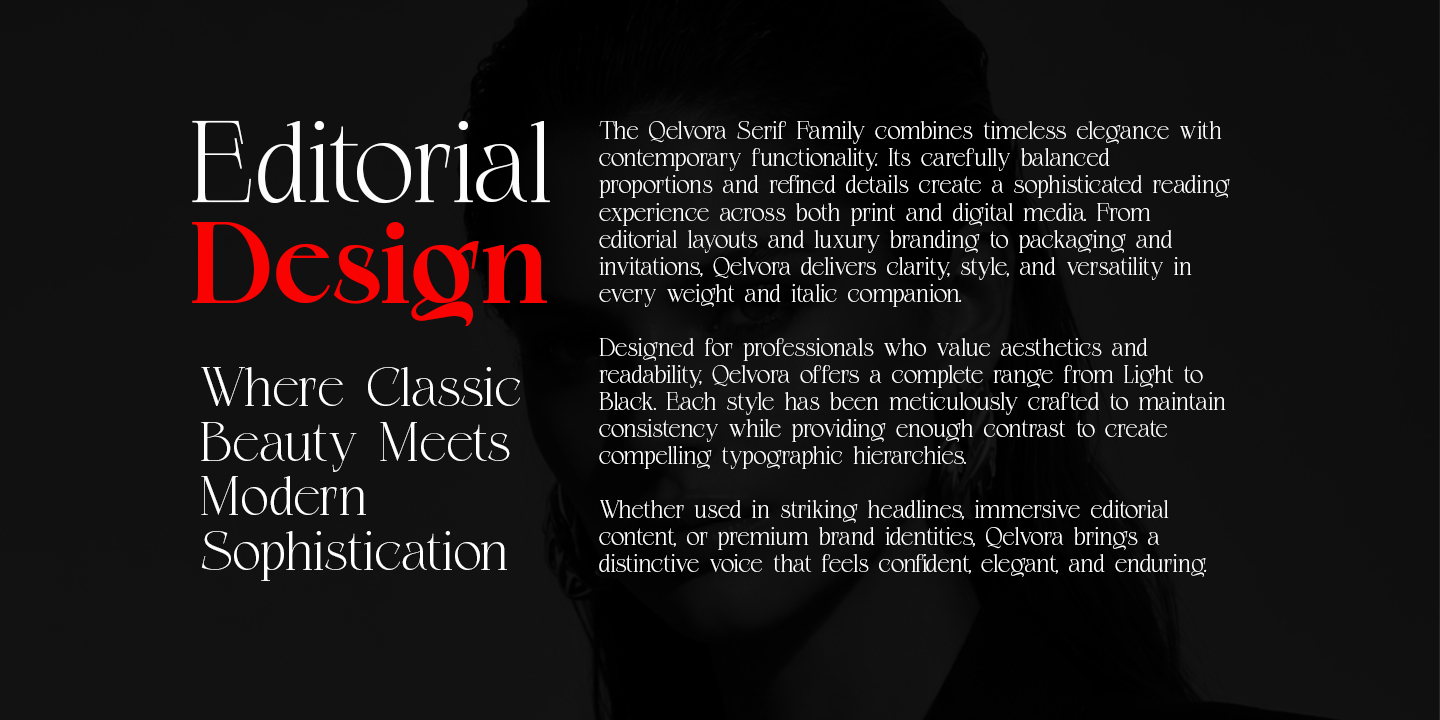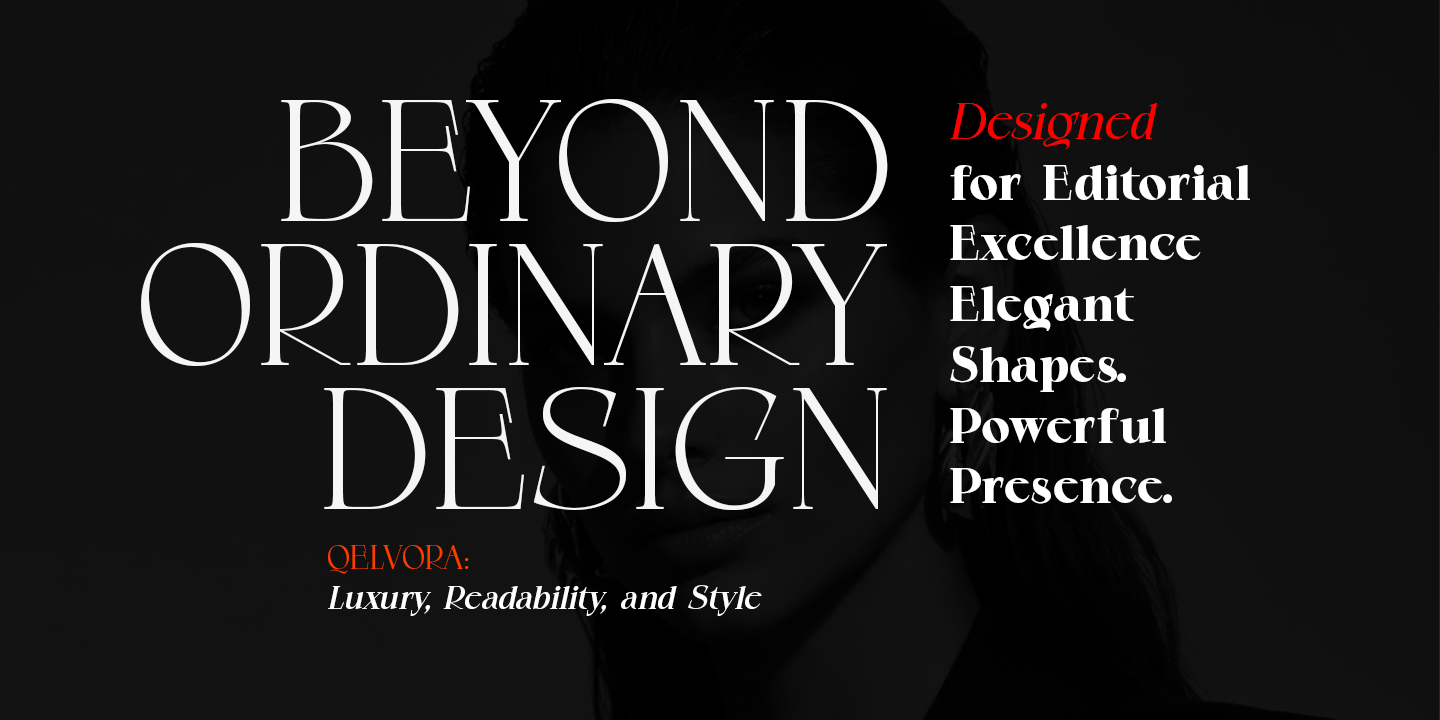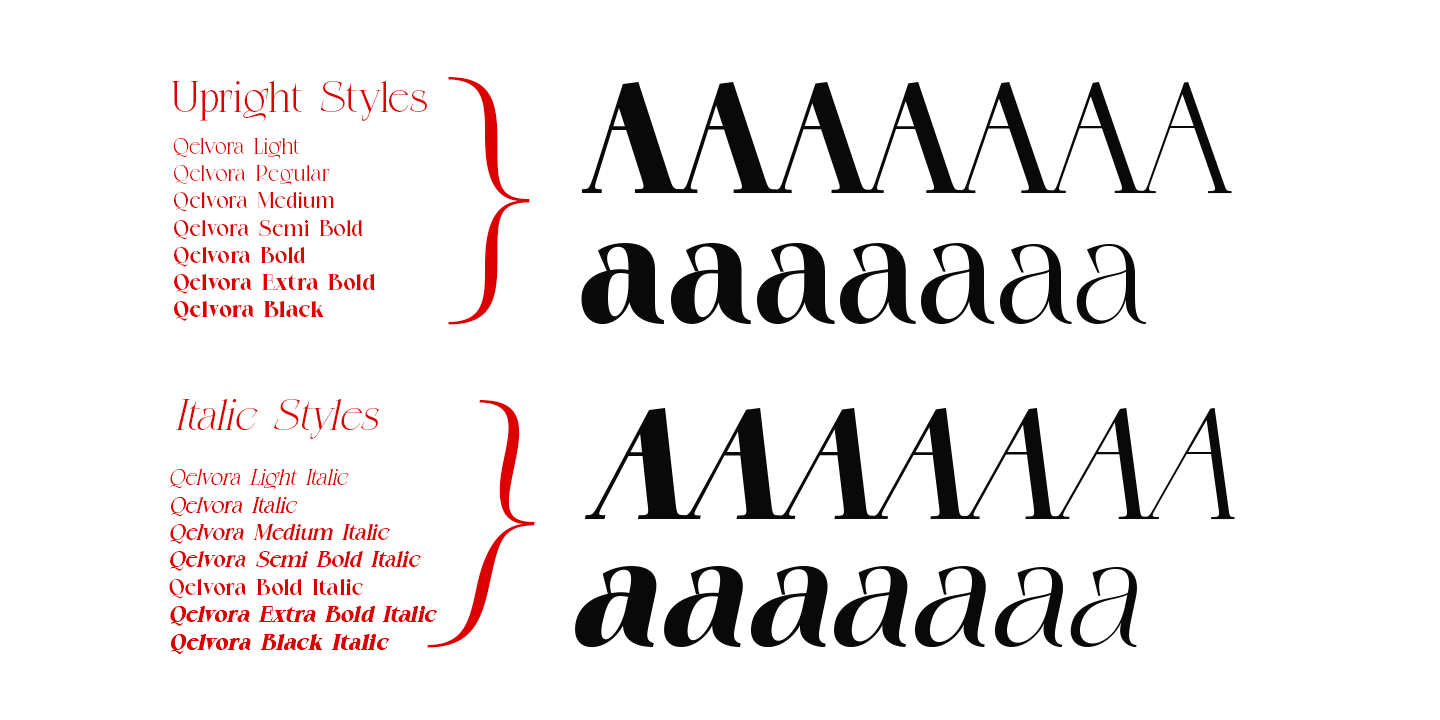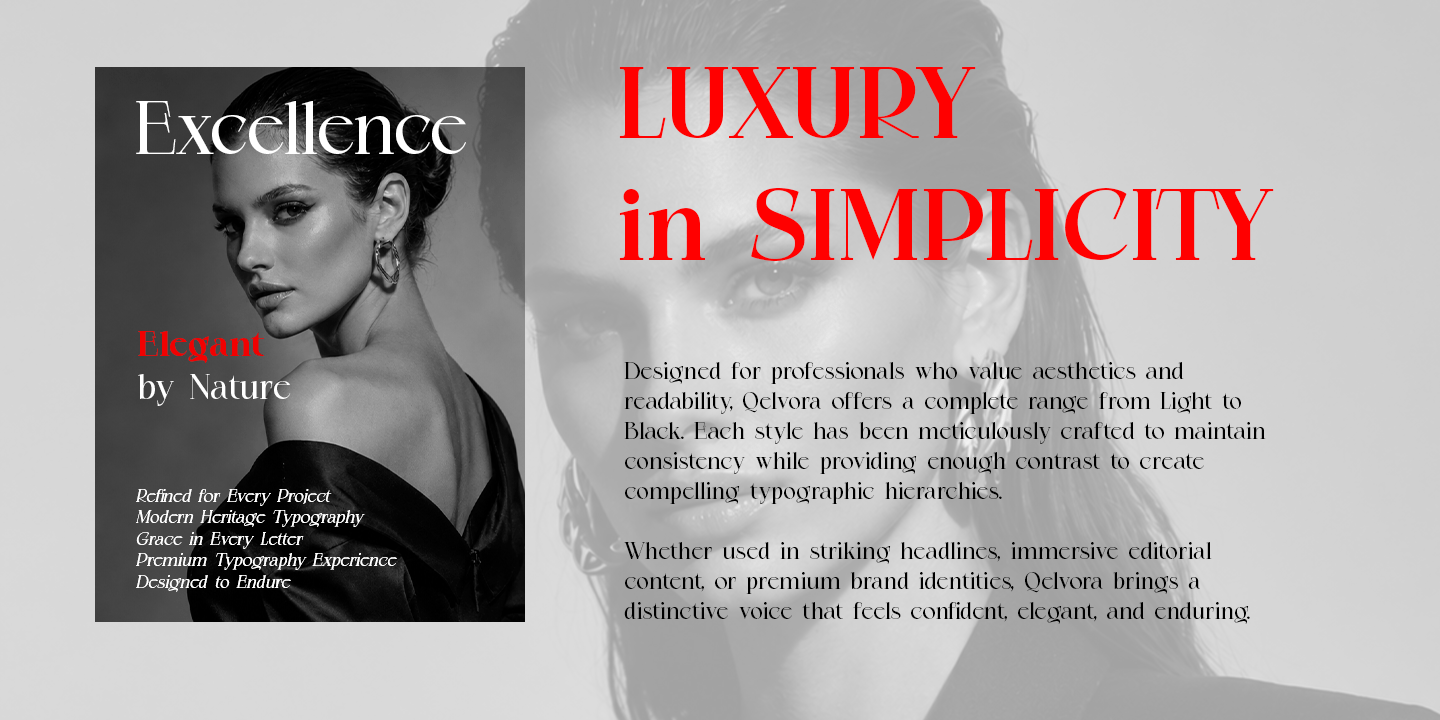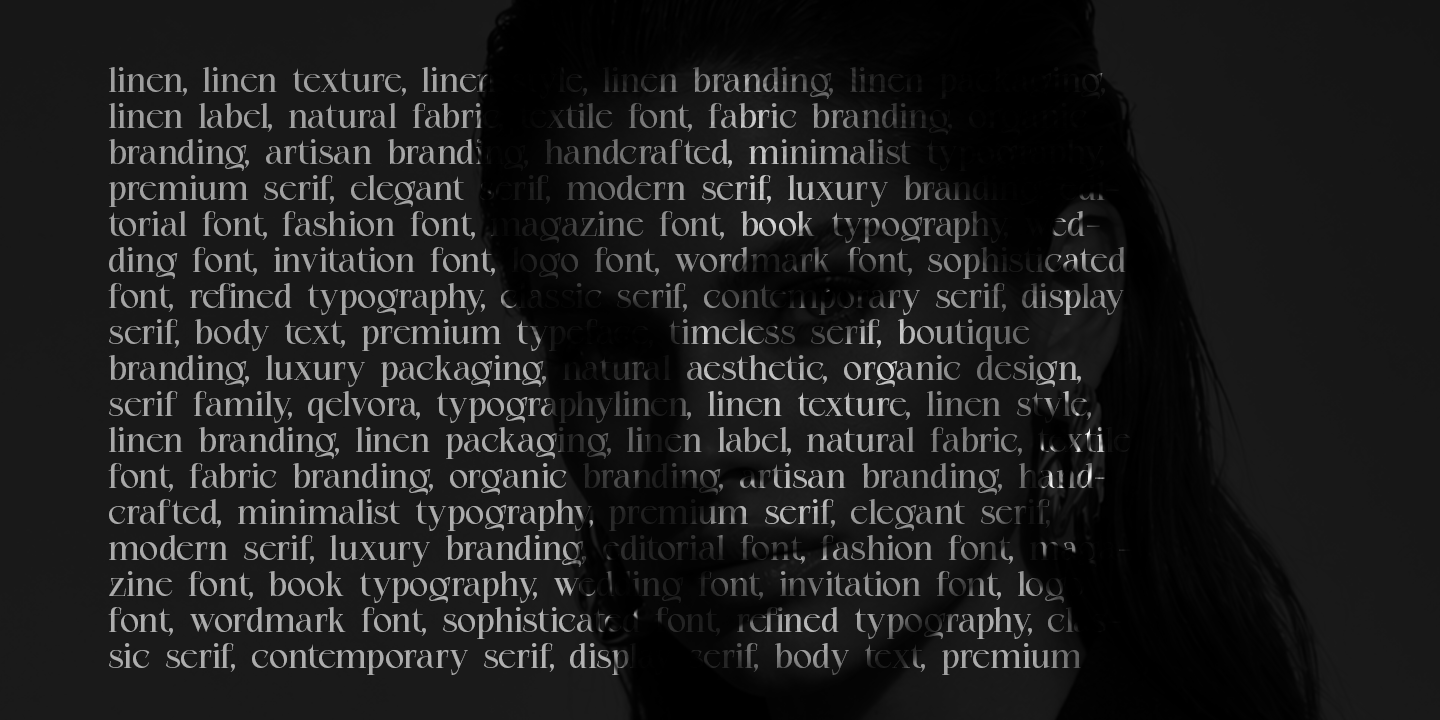
Qelvora
Qelvora Serif Font Family
Qelvora is a refined and versatile serif typeface designed to bring elegance, readability, and timeless sophistication to any project. Featuring a complete family ranging from Light to Black, along with matching Italic styles, Qelvora offers exceptional flexibility for editorial design, branding, luxury packaging, publishing, advertising, and modern digital interfaces.
With its balanced proportions, graceful serifs, and carefully crafted letterforms, Qelvora seamlessly combines classic typography traditions with contemporary aesthetics. The lighter weights deliver an airy and elegant appearance perfect for body text and editorial layouts, while the heavier weights provide strong visual impact for headlines, logos, and display applications. The accompanying italics introduce a dynamic and expressive character, ideal for emphasis, quotations, and sophisticated design compositions.
Whether you're creating a premium brand identity, a stylish magazine, an elegant wedding invitation, or a professional corporate presentation, Qelvora provides the typographic versatility needed to elevate your work with confidence and distinction.
Features
- Elegant Serif Design
- Light to Black Weights
- Matching Italics
Perfect For
- Editorial Design
- Luxury Branding
- Fashion Magazines
- Book Typography
- Wedding Invitations
- Packaging Design
- Logos & Wordmarks
- Advertising Campaigns
- Corporate Identity
- Premium Web Design